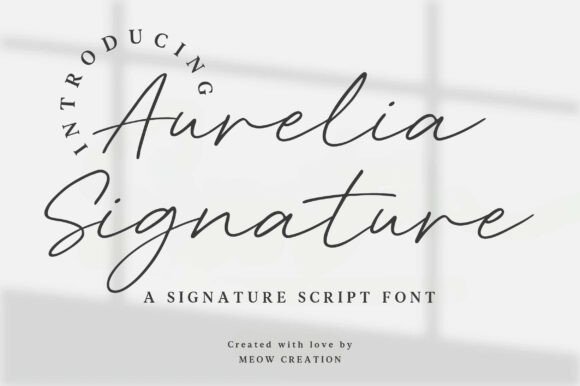
Introducing Aurelia Signature Font: Elevate Your Brand with Elegance and Sophistication
In the world of typography, a signature font can make all the difference in setting your brand apart from the rest. Imagine having the power to infuse your work with the personal touch of a genuine, handwritten signature. Welcome to Aurelia Signature, a stunning script font designed to bring a touch of elegance and sophistication to your designs. With its thin, clean lines, subtle irregularities, and beautiful connections between characters, Aurelia Signature perfectly captures the essence of quick, natural penmanship.
The Art of Elegance: Aurelia Signature’s Unique Features
Aurelia Signature boasts a range of features that make it the perfect choice for designers and crafters looking to create high-end, personalized designs. Some of its key characteristics include:
- Thin, clean lines: Aurelia Signature’s slender strokes evoke a sense of refinement and luxury, making it ideal for projects that demand a high-end aesthetic.
- Subtle irregularities: The font’s subtle imperfections mimic the natural variations found in handwritten script, giving your designs a warm, organic feel.
- Beautiful connections: Aurelia Signature’s characters flow seamlessly into one another, creating a beautiful, fluid script that’s both elegant and effortless.
- Decorative swashes and alternates: The font’s extensive range of swashes and alternates allows designers to create truly customized and distinctive typographic layouts that feel both intimate and luxurious.
Endless Design Possibilities with Aurelia Signature
Whether you’re a designer, crafter, or entrepreneur, Aurelia Signature offers endless possibilities for creating stunning, bespoke designs. Some of the many ways you can use this exquisite font include:
- Creating stunning logos and monograms: Aurelia Signature’s elegant, refined aesthetic makes it the perfect choice for creating sophisticated logos and monograms that will elevate your brand.
- Designing chic wedding stationery: The font’s romantic, whimsical feel makes it ideal for designing beautiful wedding invitations, stationery, and other paper goods.
- Adding professional watermarks to photography: Aurelia Signature’s subtle, sophisticated aesthetic makes it the perfect choice for adding elegant watermarks to your photography.
- Branding high-end products: The font’s luxurious feel makes it ideal for branding high-end products like cosmetics, jewelry, and fashion accessories.
Why Choose Aurelia Signature Font?
With so many fonts on the market, why choose Aurelia Signature? Here are just a few reasons why this exquisite font stands out from the rest:
- Unique, hand-crafted aesthetic: Aurelia Signature’s beautiful, hand-crafted aesthetic sets it apart from more generic, computer-generated fonts.
- High-end, sophisticated feel: The font’s elegant, refined aesthetic makes it perfect for high-end designs that demand a sophisticated, luxurious feel.
- Endless design possibilities: With its extensive range of swashes, alternates, and design features, Aurelia Signature offers endless possibilities for creating truly customized and distinctive designs.
- Easy to use: The font is incredibly easy to use, even for designers who are new to working with script fonts.
In conclusion, Aurelia Signature is a truly exceptional font that offers designers and crafters the perfect combination of elegance, sophistication, and versatility. With its beautiful, hand-crafted aesthetic, extensive range of design features, and endless possibilities for customization, this exquisite font is sure to become a staple in any designer’s toolkit. Whether you’re creating stunning logos and monograms, designing chic wedding stationery, or branding high-end products, Aurelia Signature is the perfect choice for anyone looking to elevate their brand with a touch of luxury and refinement.